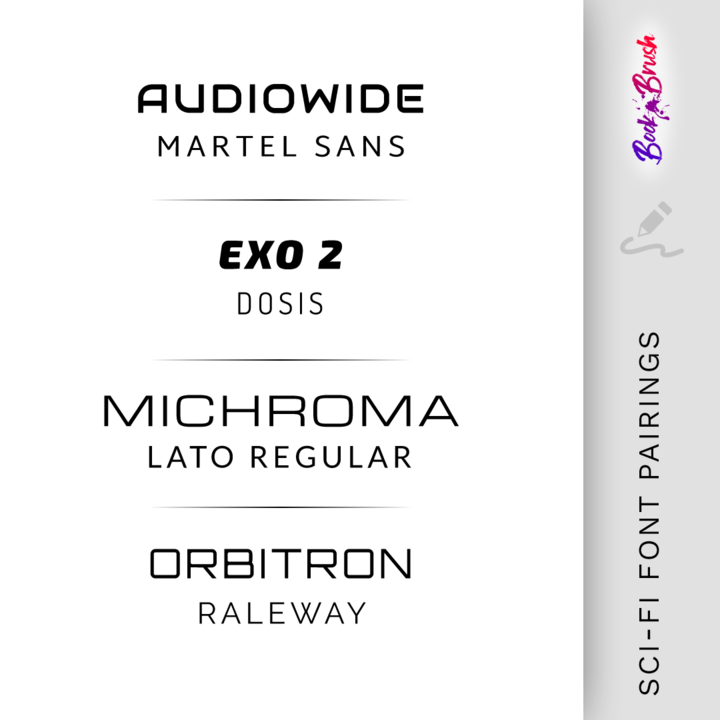
The Best Book Cover Fonts To Use For Your Sci-fi Book
When it comes to designing a sci-fi book cover, one thing you need to consider is the font. Fonts convey tone, genre, and style. Using the right font will elevate your overall cover and allow readers who pick up your book to identify the genre right away. When you have a picture of an alien on your cover but have a beautiful cursive font that should be used for a romance book on your sci-fi book cover, it’ll leave readers confused. It’s also important to keep in mind that the first impressions of your book matter. If a potential reader isn’t a fan of a book cover, chances are they won’t read it. To enhance your cover and ensure it flows well, you need the right font and font pairings. Below, we cover the best book cover fonts and font pairings to use for your sci-fi book. Let’s begin!
Top Fonts To Use For Your Sci-Fi Book Cover
• Orbitron – This modern font brings futuristic vibes, which makes it a great choice for a sci-fi book cover.
• Roboto – Roboto is a font you just can’t go wrong with. It’s clean, simple, and an easy go-to choice.
• Bank Gothic – This is another font that brings futuristic vibes. It could easily be used for a space book.
• Audiowide – Audiowide is a sleek and unique font that also brings space and galaxy vibes.
• Neuropol – The interesting letters of this font are different, but will be eye-catching as a title. It brings cyberpunk vibes.
• Rajdhani – The thin letters are simple, yet they also possess a unique style.
• Iceland – The slight flip at the end of each letter adds character and brings sci-fi feels.
• Nanum Gothic – This is another simple yet effective font. It’s modern, clean, and versatile.
Favorite Sci-fi Font Pairings
Font pairings are important. Finding pairs that jive well together will uphold and support the balance of your book. Some excellent font pairings include:
Other font pairings include:
• Orbitron (Title) and Roboto (Body)
• Orbitron (Title) and Roboto Condensed (Body)
• Eurostile Bold (Title) and Open Sans Light (Body)
• Audiowide (Title) and Montserrat (Body)
• Neuropol (Title) and Helvetica Neue (Body)
• Bank Gothic (Title) and Source Sans Pro (Body)
In Conclusion
The right font that fits the genre and style of your book matters. The right font will help pull the entire cover together. Your book cover will stand out and be the perfect face for your story.